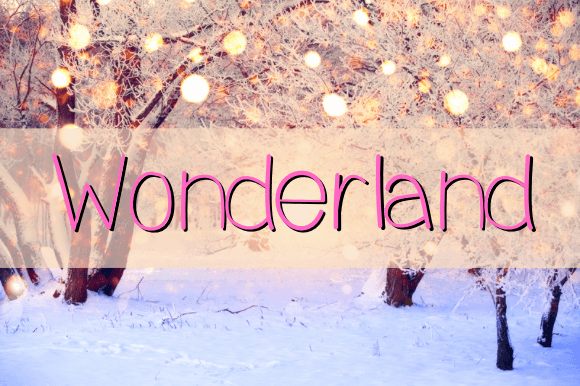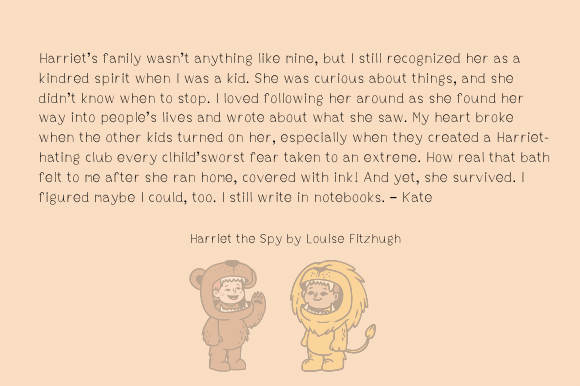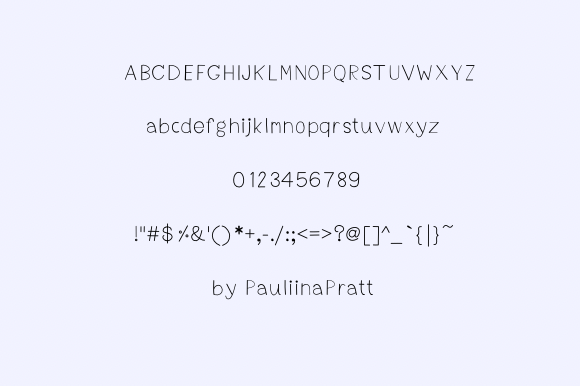
Wonderland Font
About Wonderland Font
Wonderland is a cute and friendly handwritten font. It has beautiful and well-balanced characters which makes it suitable for a wide range of crafty ideas.